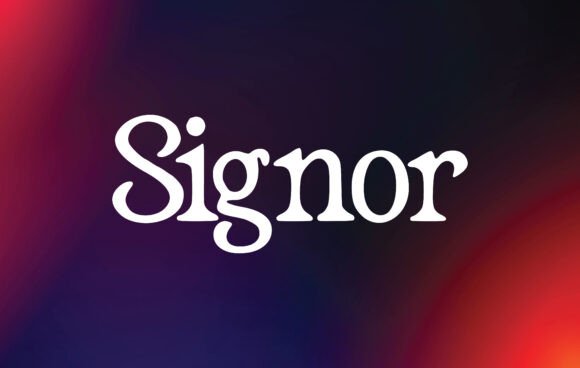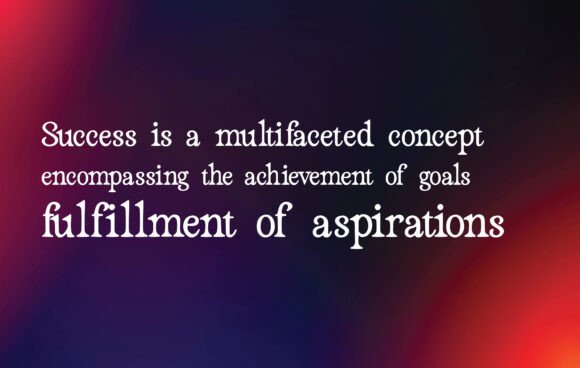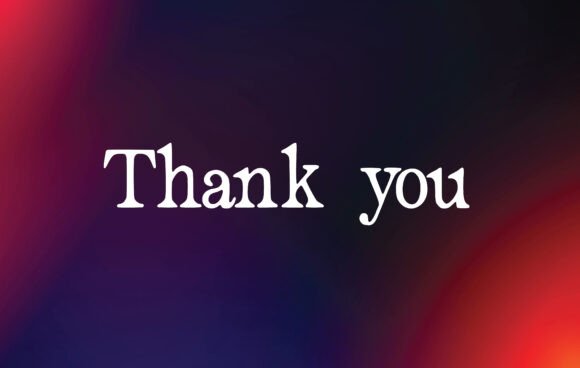
Signor Font
Signor is a lovely and beautiful handwritten font.This font has the potential to take your creative ideas to the highest level.It is the best choice for creating eye catching logos, branding and quotes.